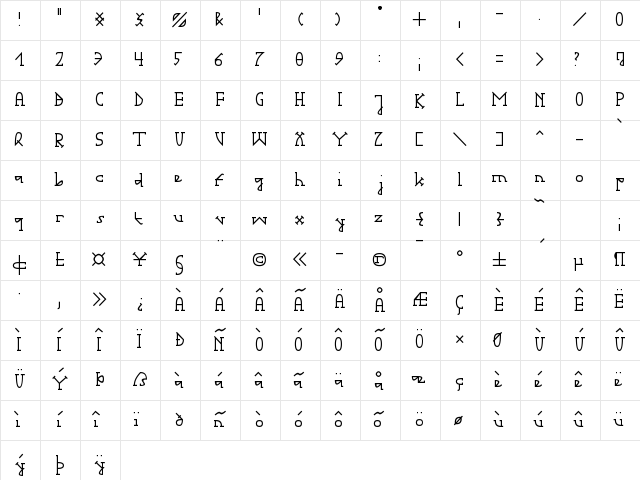
Gotika Serifai B Regular
| Designer | A.Skersys (extate) |
Design Context for Gotika Serifai B Typeface
Gotika Serifai B brings classic typographic sensibility to the table — its serifs and measured letterforms reflect centuries of print heritage.
Pro Tip: Set Gotika Serifai B with slightly loose tracking in headlines to let each letterform's detail read clearly at display sizes.